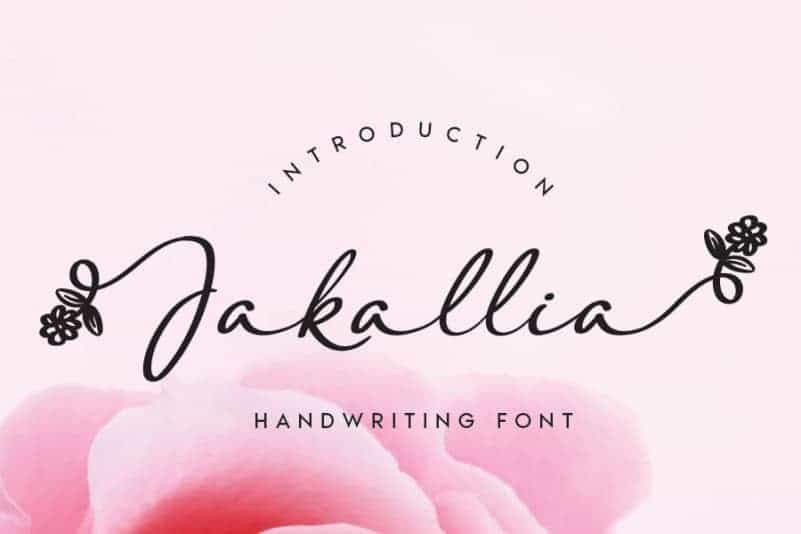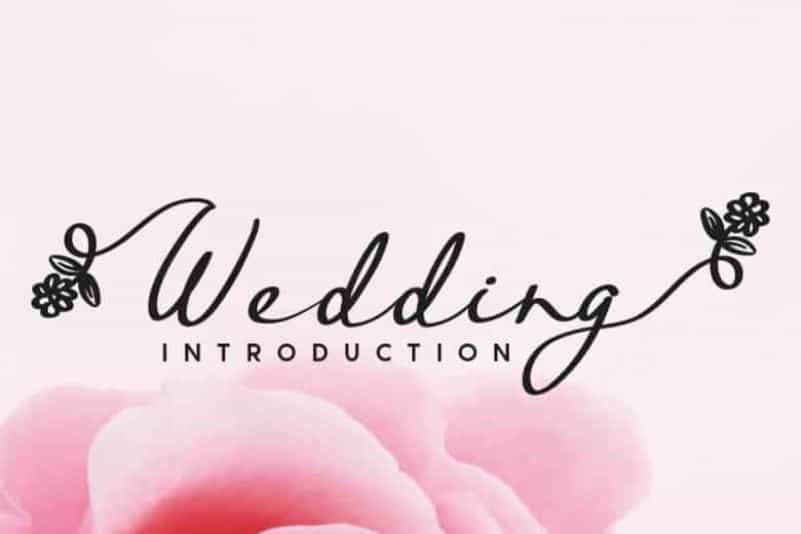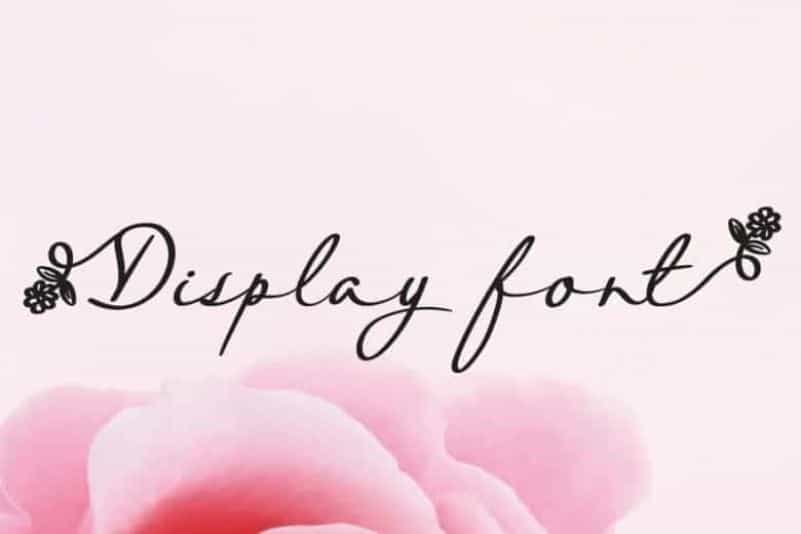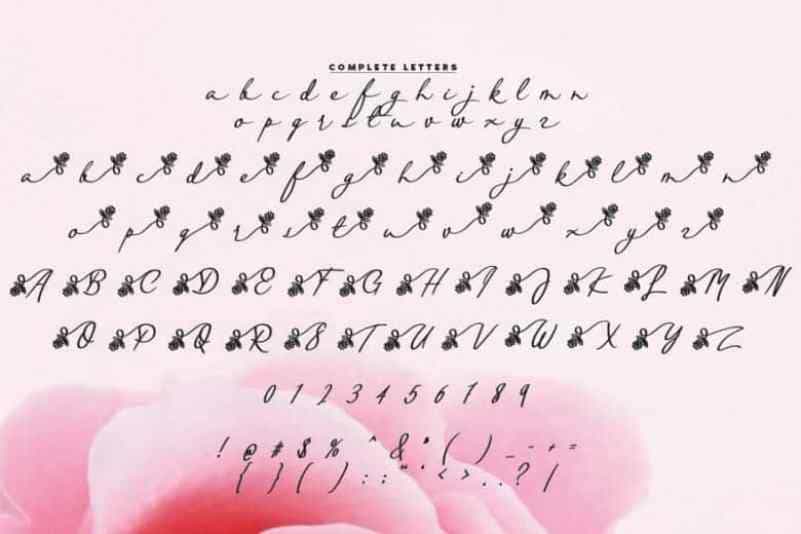
Jakallia is a handwritten elegant font. This takes the shape of floral letters and can help spruce up your crafts on paper and your Instagram photos at the same time! Jakallia can turn anything into a work of art!